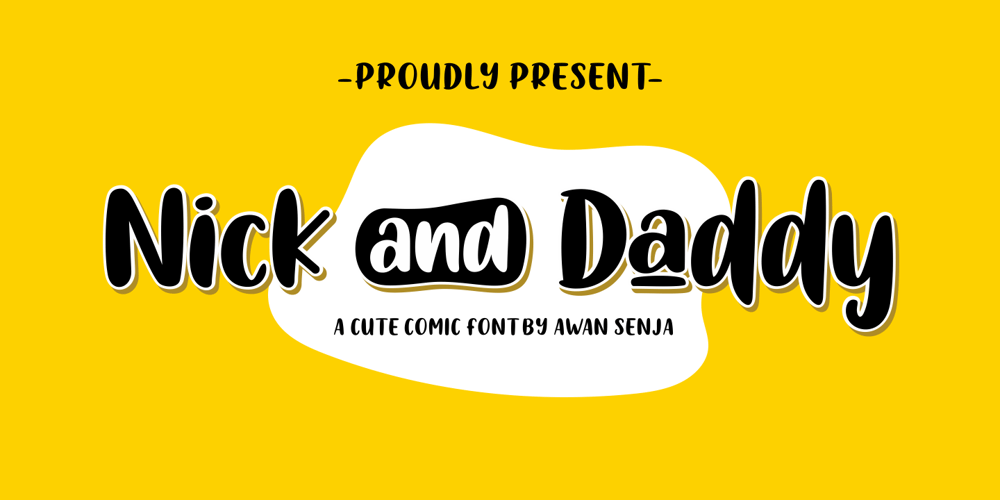
Nick and Daddy Font Family was designed by Riyadh Abuhafs and published by Awan Senja. Nick and Daddy contains 1 styles and family package options. Nick and Daddy is a cute comic font, carefully handcrafted to become a true favorite. Its casual charm makes it appear wonderfully down-to-earth, readable and, ultimately, incredibly versatile. Nick and Daddy will look outstanding in any context, whether it�s being used on busy backgrounds or as a standalone headline!